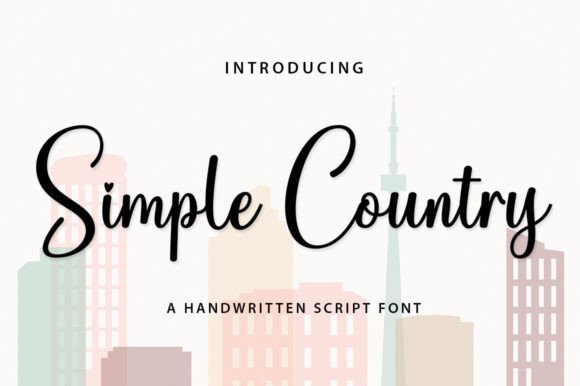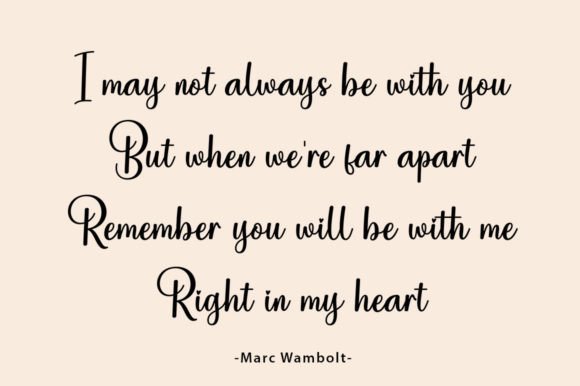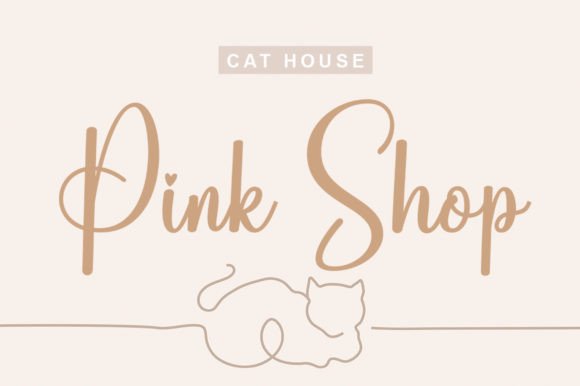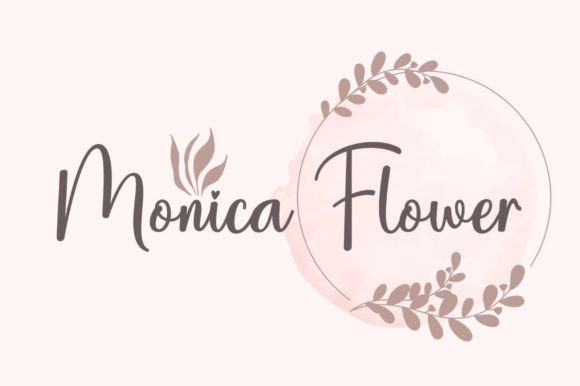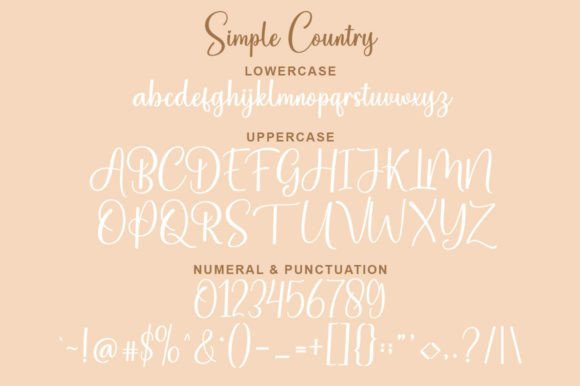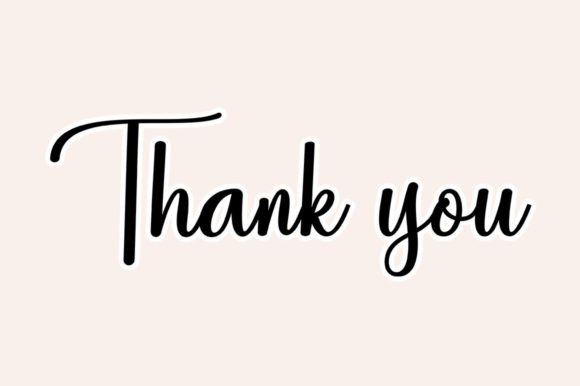
Simple Country Font
Simple Country Font: Elegant Script for Refined Designs
“Simple Country” is a lovely and delicate script font that radiates elegance and class. It’s perfect for creating designs with a beautiful and refreshing look, particularly for projects demanding sophistication and timeless beauty.
Key Features of Simple Country Font
• Elegant Style: Simple Country brings a refined and graceful feel to designs.
• Delicate Script: Creates a sophisticated atmosphere in typography.
• Versatile Use: Suitable for many projects, from branding to invitations.
Elegant Invitations and Stationery
Simple Country’s refined style is ideal for creating beautiful wedding invitations and special event materials.
Use Simple Country to design sophisticated logo designs and branding materials that convey timeless beauty.
Editorial and Digital Design
The font’s delicate look makes it perfect for creating eye-catching magazine layouts and website headers.
Why Choose Simple Country Font?
Simple Country offers more than just beautiful letters. Here’s why it stands out:
• Enhances overall aesthetics with its delicate script style
• Conveys a sense of beauty and elegance effectively
• Adapts well to various design themes and creative endeavors
By using Simple Country, you open up new design possibilities. Its elegant style works well in many contexts, from greeting cards to poster designs. The font’s ability to convey sophistication can inspire creative ideas and help you approach projects from a refined perspective.
If you’re looking for a font that combines delicacy with elegance, Simple Country is an excellent choice. It’s perfect for adding a touch of timeless beauty to your work, especially for projects that need a sophisticated, captivating feel.
Explore how Simple Country can transform your designs. From branding materials to personal creations, this font brings a refined and elegant quality to your work.